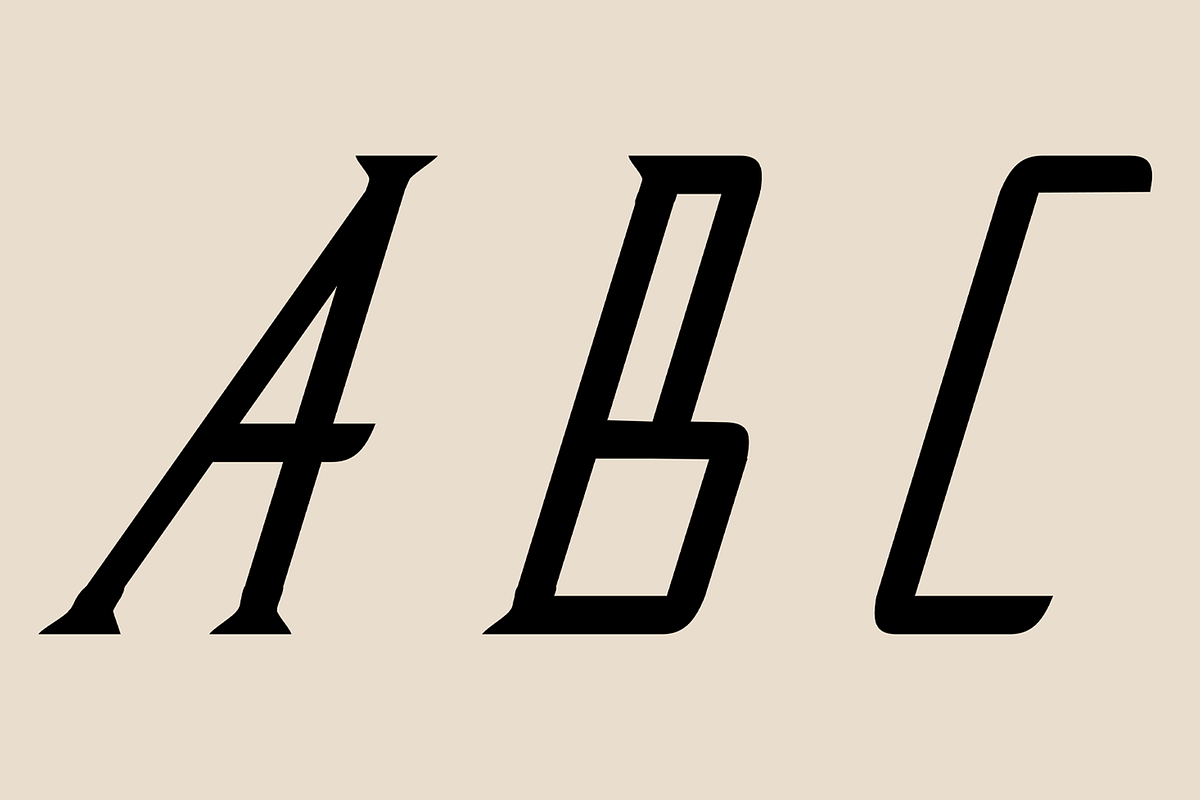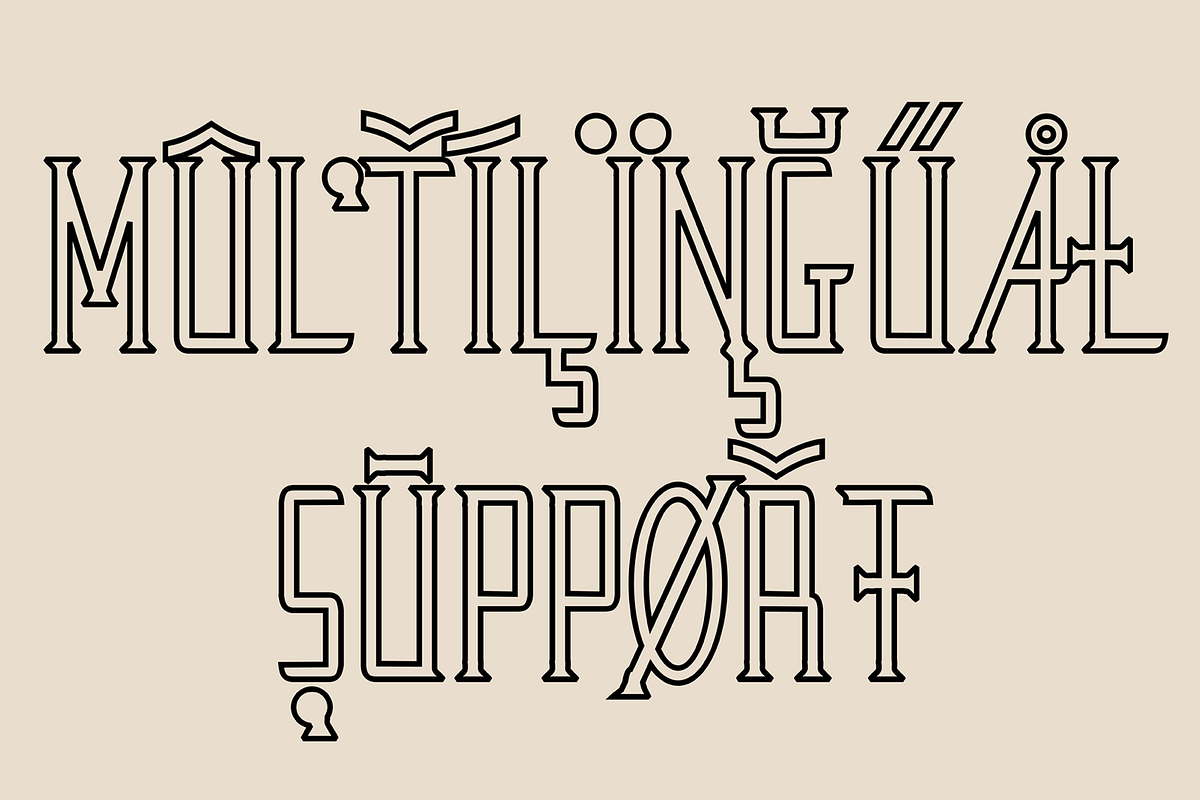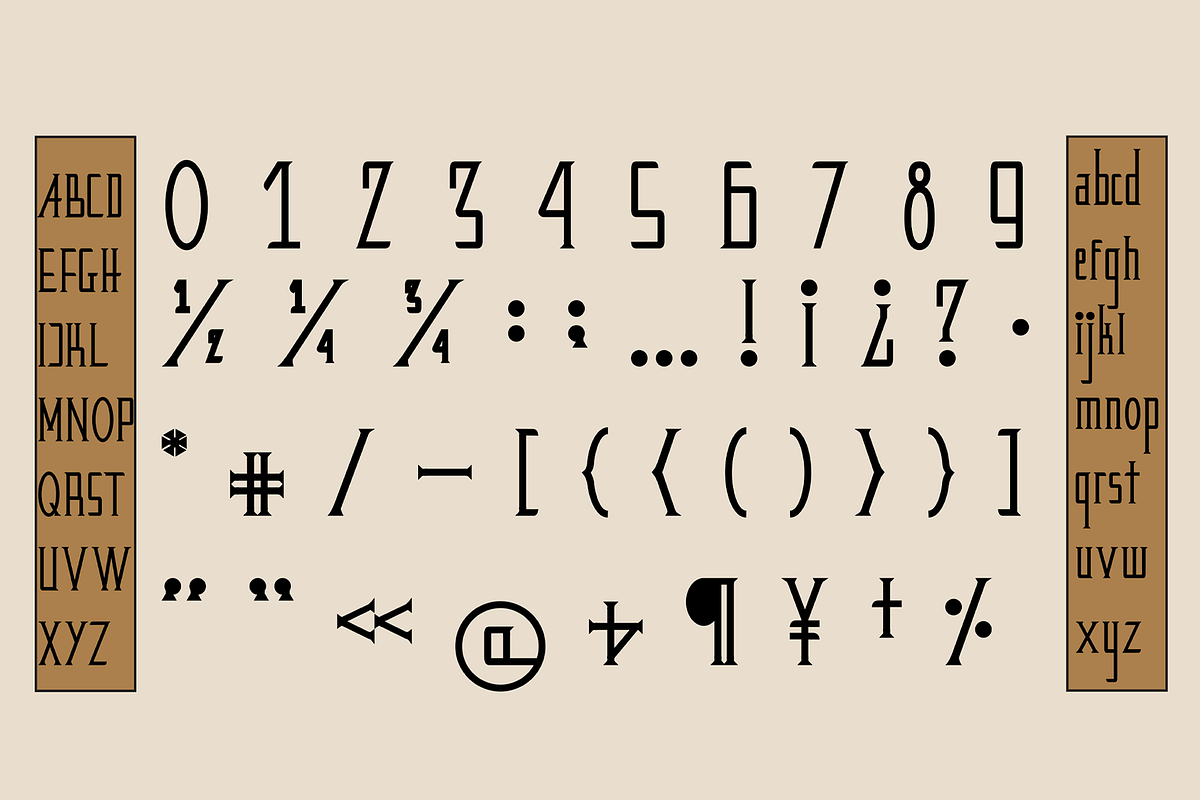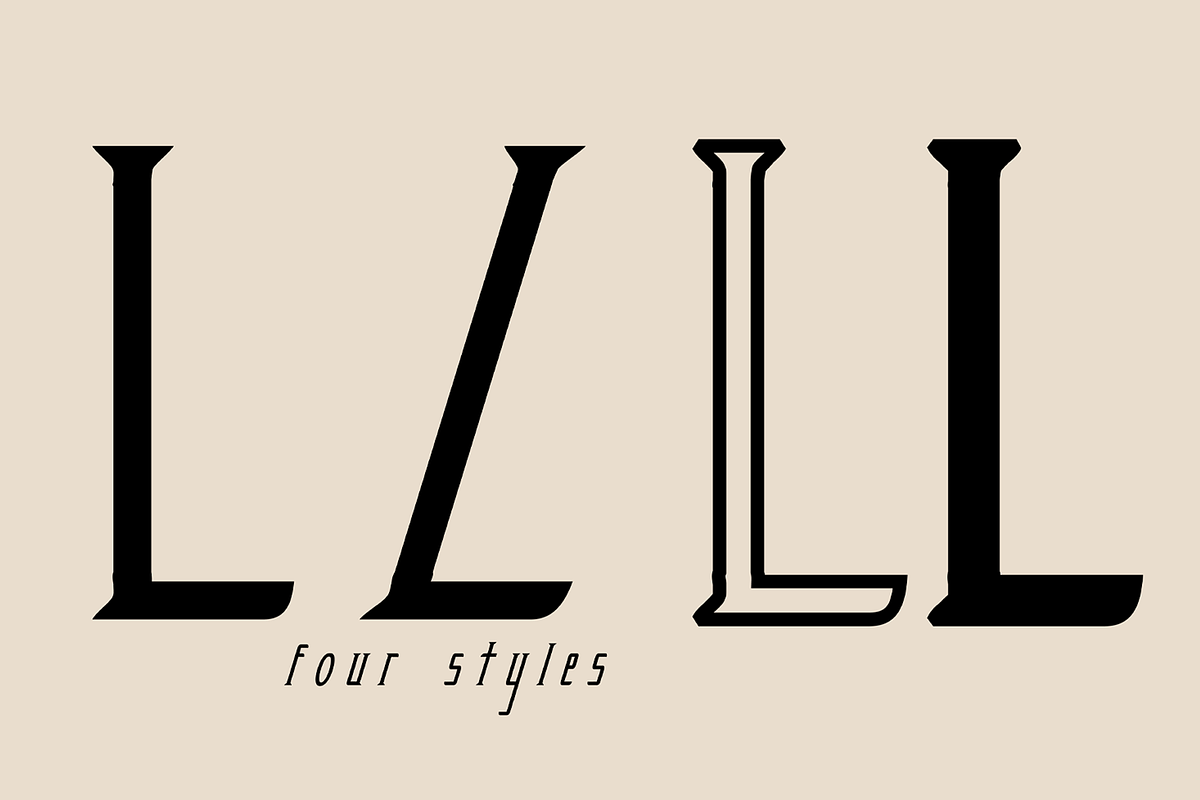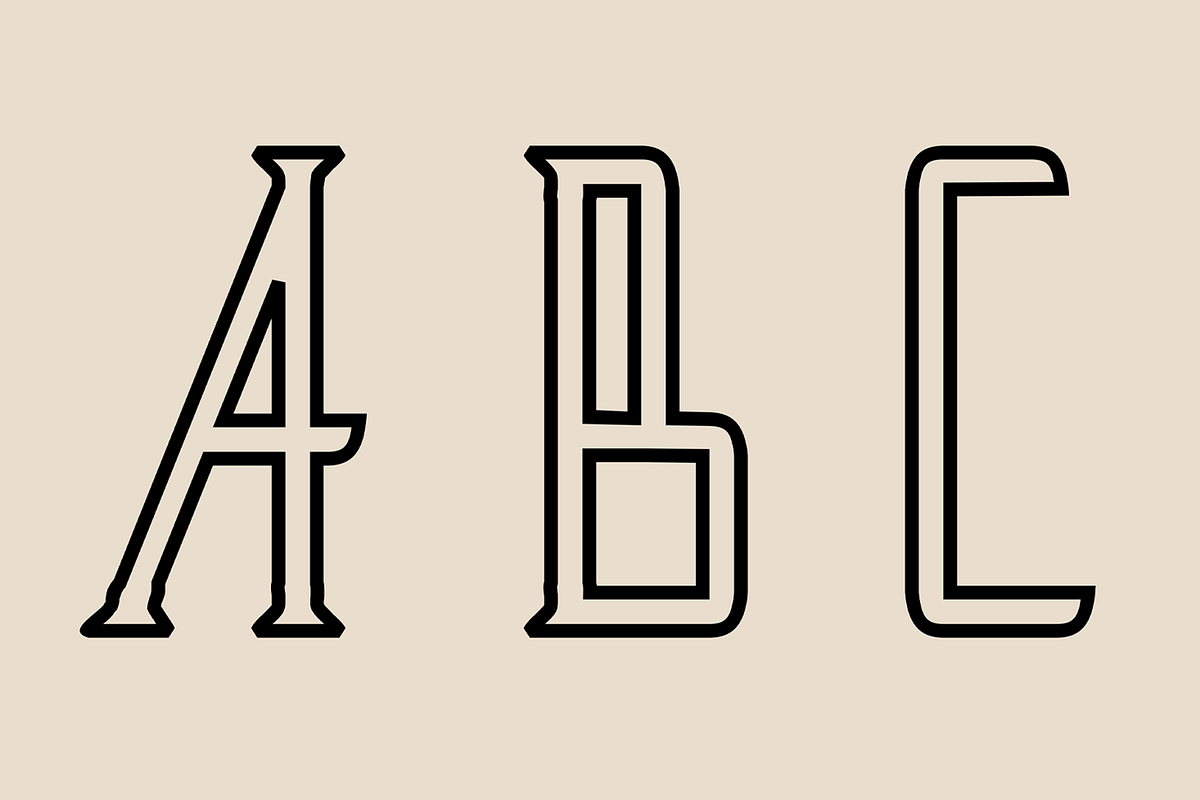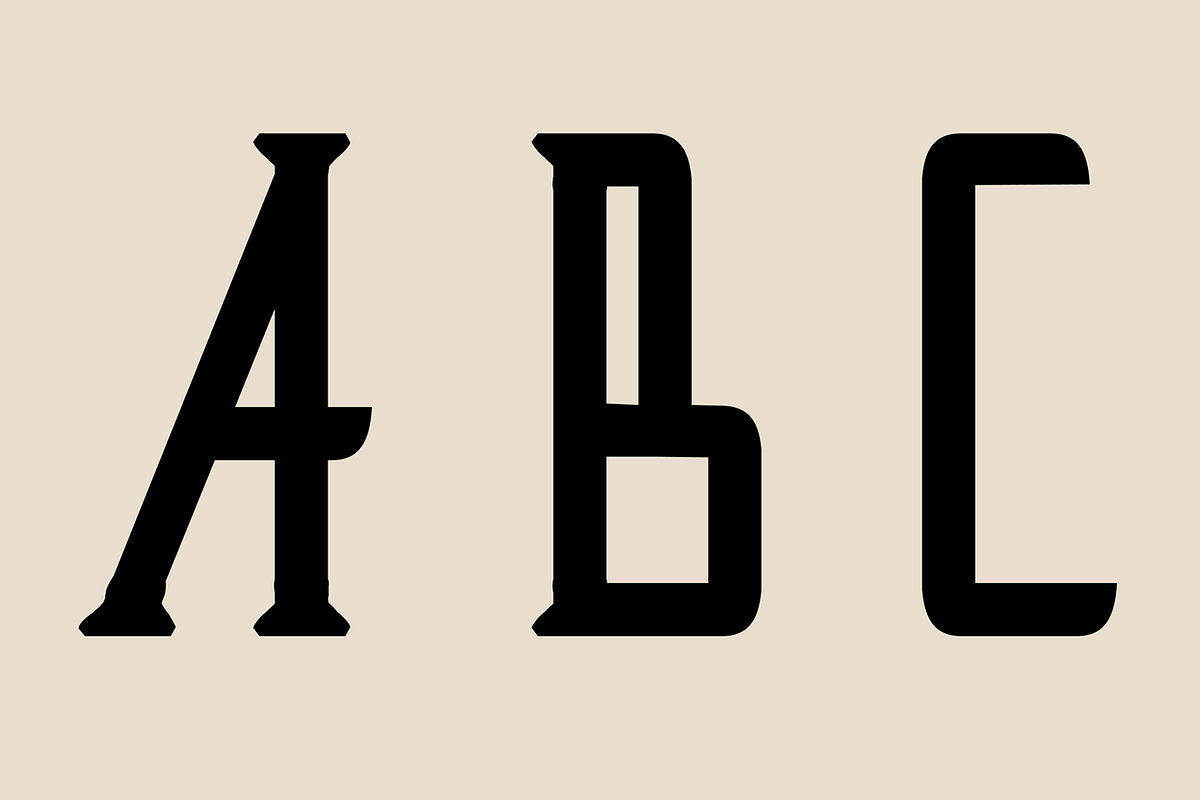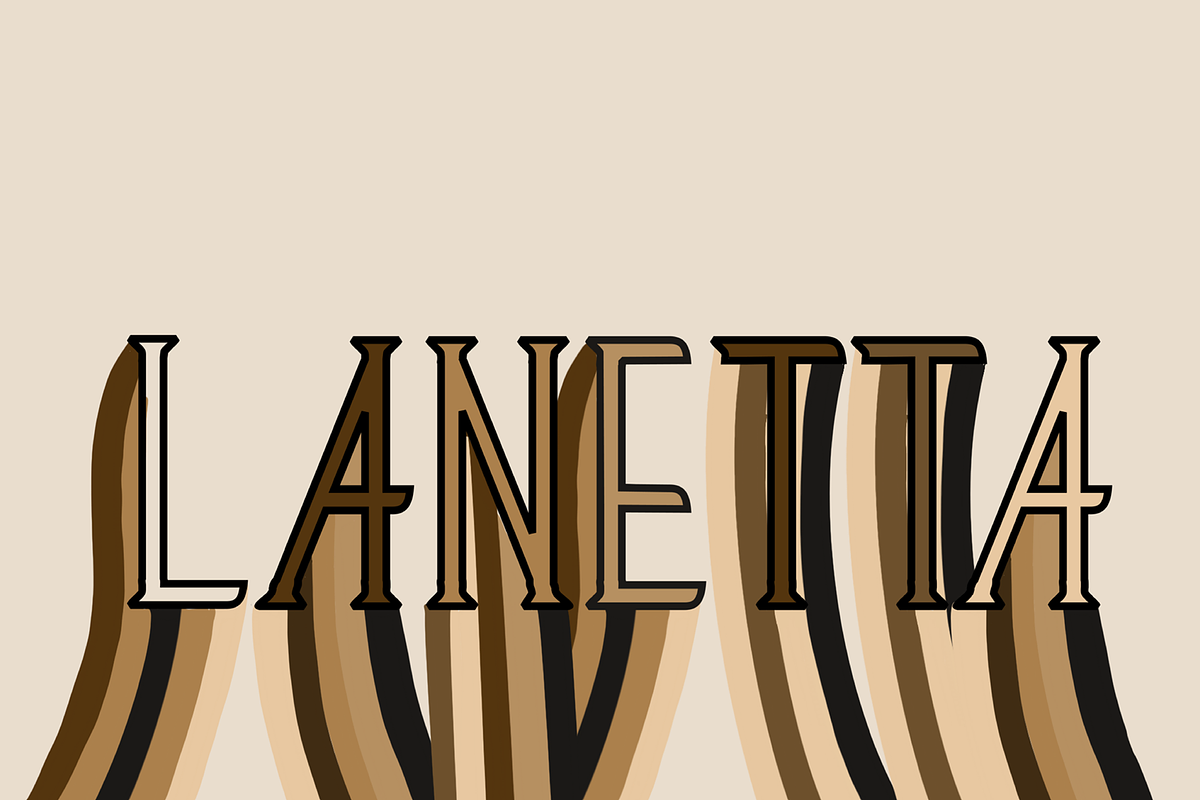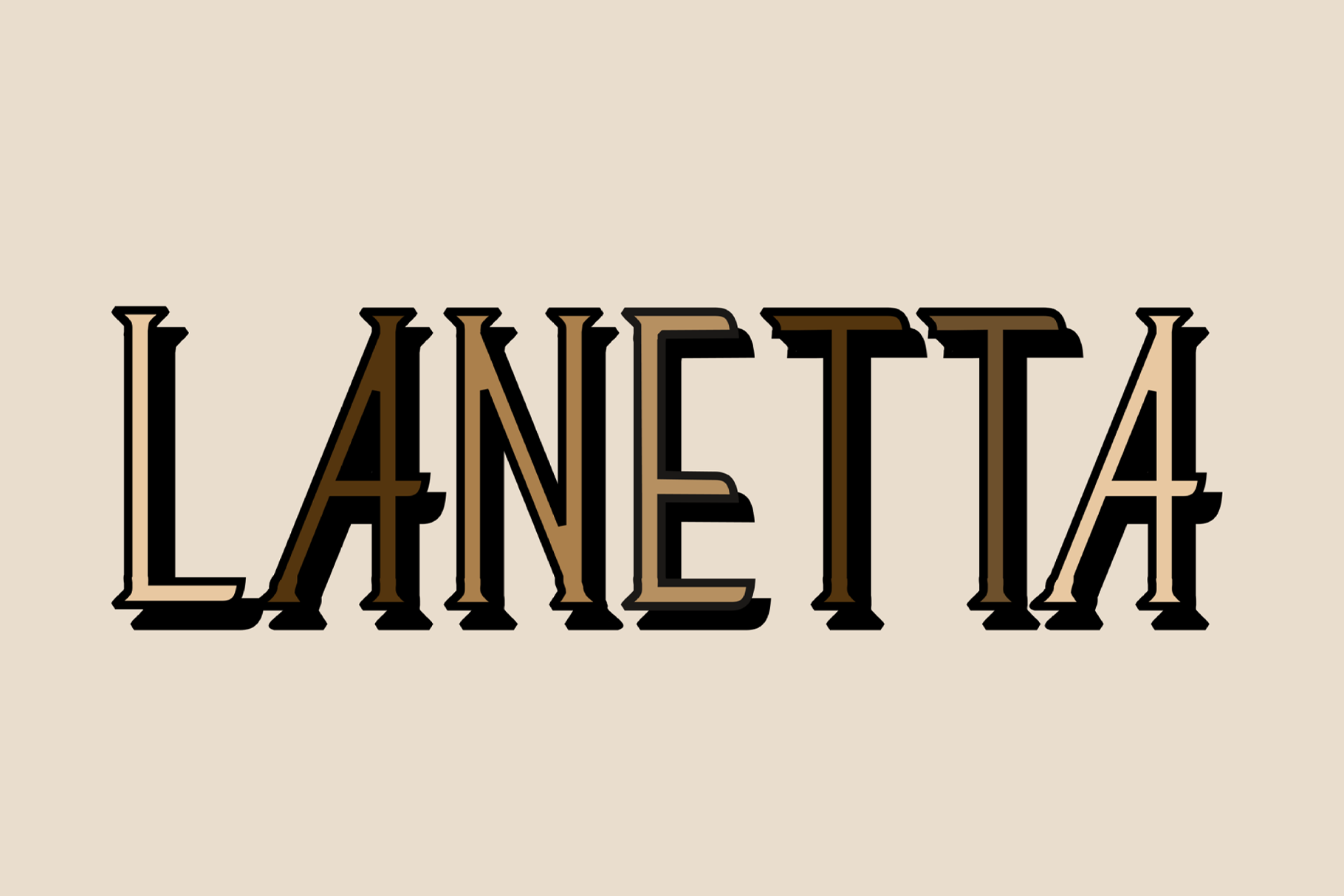
Lanetta Typeface
Lanetta is the perfect mixture between a blackletter and serif font. It's narrow characters give it stylistic appeal that you just can't get anywhere else. It's the perfect font for the fall/winter seasons, too.
Perfect for use in letters and documents, branding and logos, websites, book and album design, themed projects, and anything else that could use edgy elegance.
Glyph count: 440.
Supports most western languages.